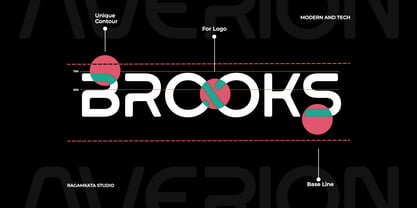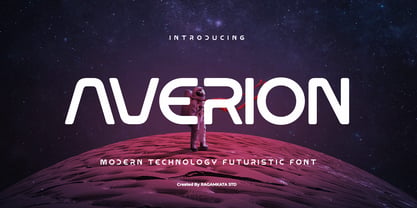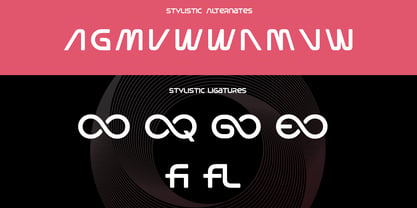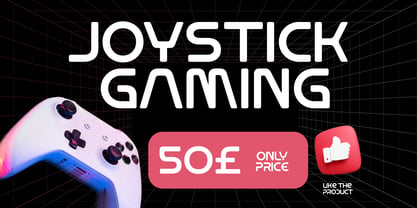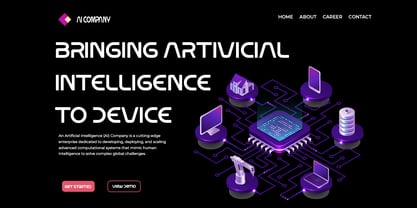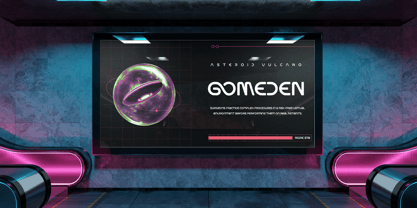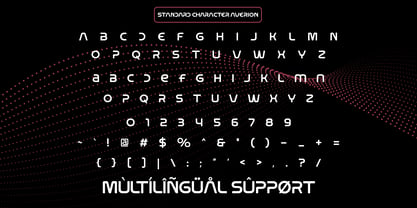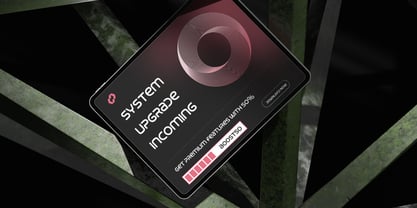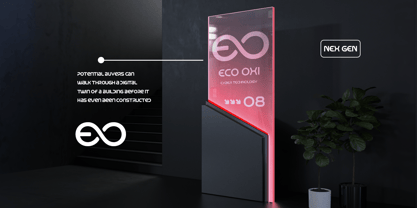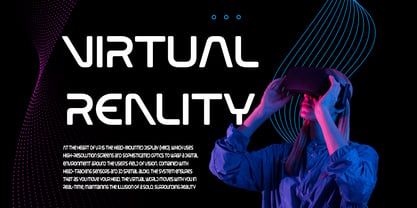
Averion
par RagamKata
La famille de polices Averion a été conçue par Yogiswhara Dio Prakoso Riadi et publiée par RagamKata. Averion contient 2 styles et options de package familial. En savoir plus sur cette famille
Averion is a cutting-edge futuristic typeface designed to infuse a bold, modern technology aesthetic into your design projects. Drawing inspiration from space exploration, digital innovation, and sci-fi visuals, this font offers a sleek and clean appearance that exudes both advancement and professionalism. Its geometric structure and smooth curves establish a strong visual identity, making it ideal for standout typography. Versatile in nature, Averion excels across a variety of creative applications, including tech branding, gaming visuals, UI/UX interfaces, posters, and digital campaigns. Whether you're crafting a futuristic logo or designing a high-impact headline, this typeface guarantees clarity, uniqueness, and a strong visual presence in every composition. Averion is perfect for designers aiming to convey innovation, modernity, and forward-thinking concepts. With its bold personality and futuristic allure, this font elevates your work into a new dimension—ideal for projects that require a sleek, high-tech, and visionary style.